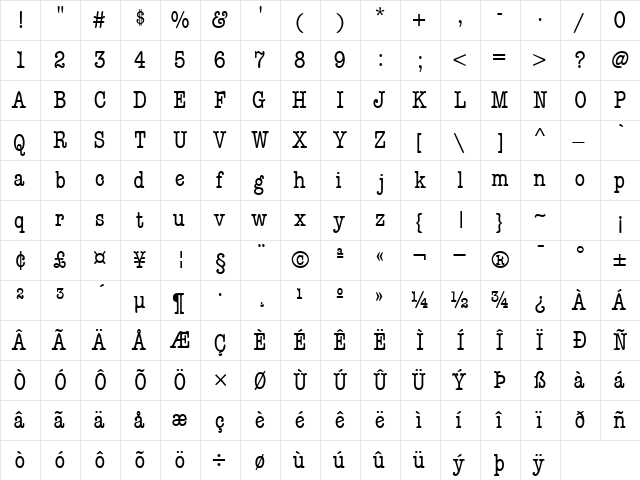
KeyboardCondAltSSK Regular
Design Context for KeyboardCondAltSSK Typeface
KeyboardCondAltSSK offers clean, dependable letterforms without strong stylistic allegiance, making it a practical choice for designers who need flexibility. Its narrow stance lets it pack a punch even in space-constrained designs.